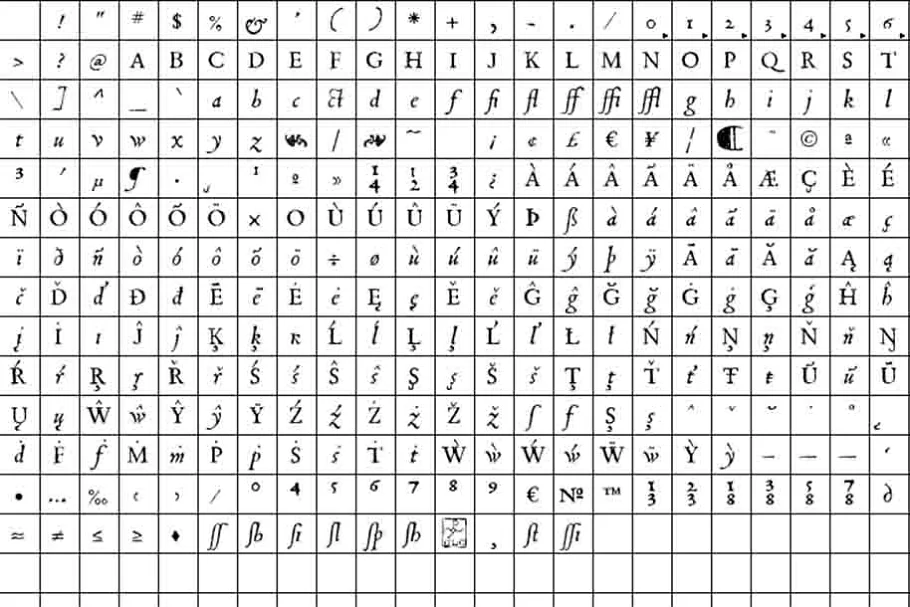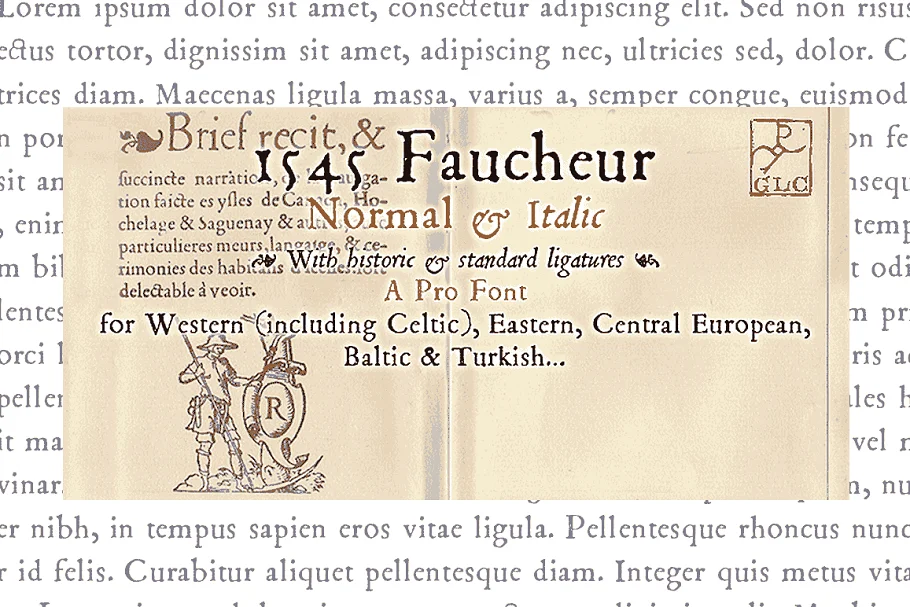
About the 1545 Faucheur OTF Font
This family was created inspired by the set of font face used in Paris by Ponce Rosset, aka “Faucheur”, to print the relation of the second travel to Canada by Jacques Cartier, first edition, in 1545.
It is a “Garaldic” set, the punch cutter is unknown, certainly, it was not Garamond himself. In our two styles (Normal & Italic), font face, kernings, and spaces are scrupulously the same as in the original.
This Pro font is covering Western, Eastern, and Central European languages (including Celtic) Baltic, and Turkish, with standard and “s long” ligatures in each of the two styles.